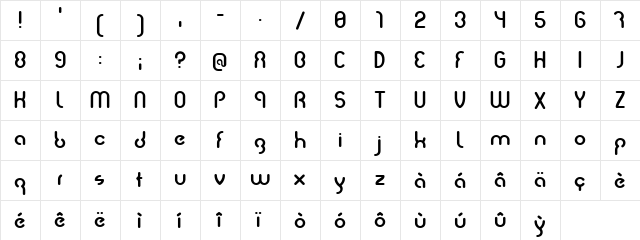
Judit Judit Font Preview
Judit Judit
Judit Judit Font Details
| Style | Judit |
| Foundry | BenoԴ Sjڨolm |
| Designer | BenoԴ Sjڨolm |
Design Context for Judit Typeface
Judit offers clean, dependable letterforms without strong stylistic allegiance, making it a practical choice for designers who need flexibility.